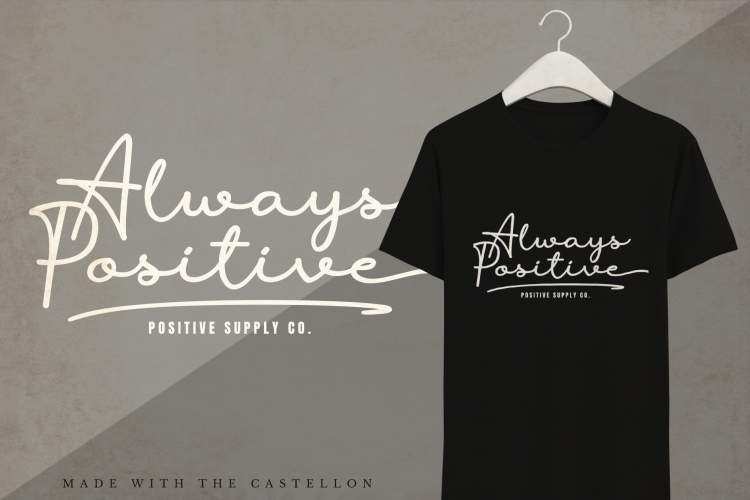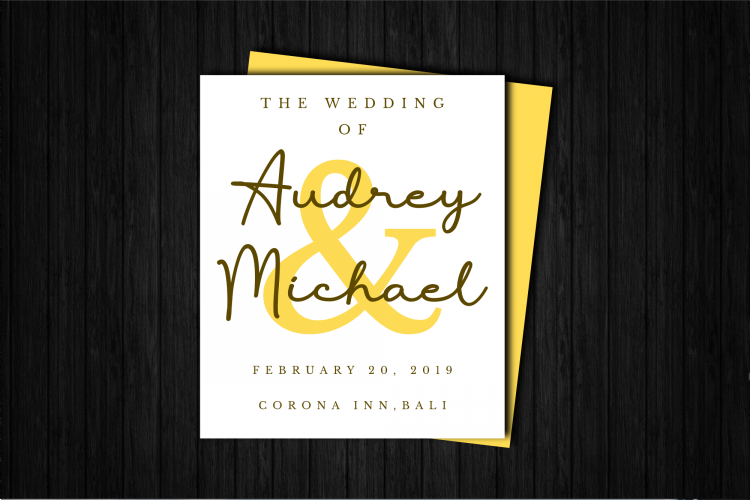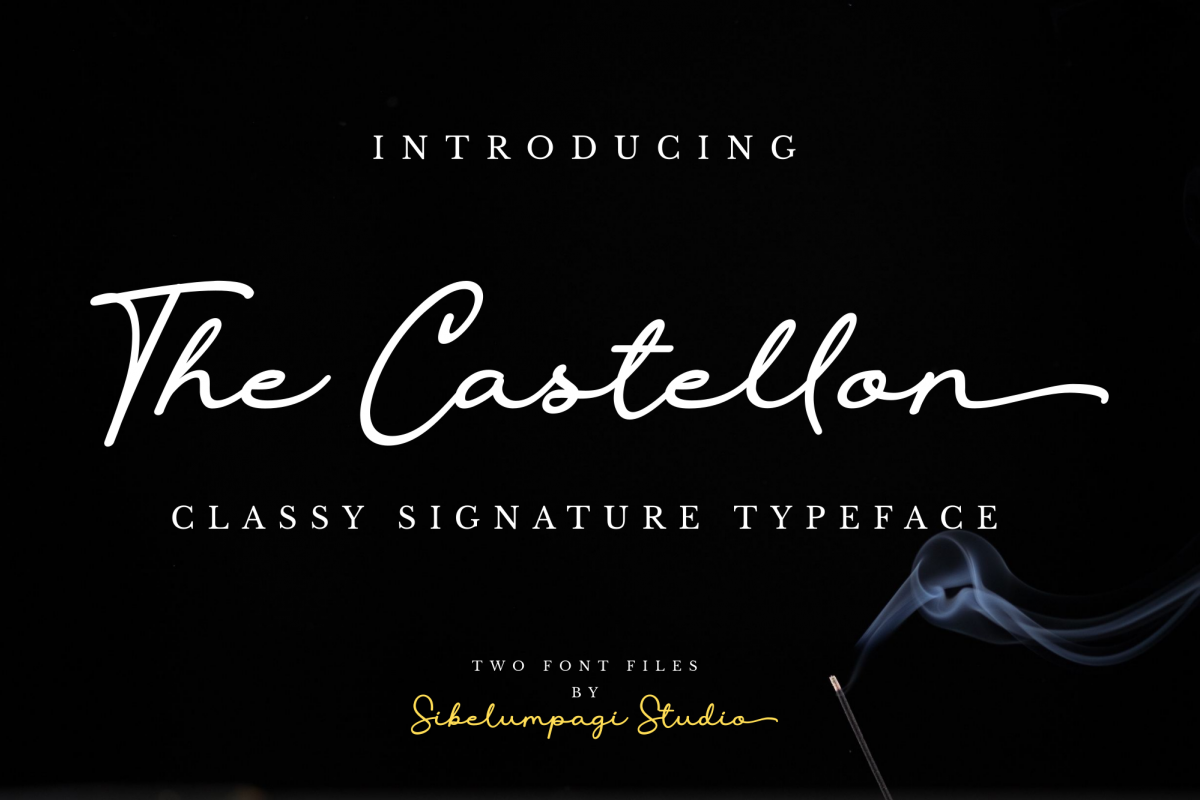
The Castellon Script Font
Hello everyone, are you looking for a classy font?
Yes, let me introduce our new font called “The Castellon”.
The Castellon is a classy signature typeface, it includes two styles regular and slant. It has an elegant style which can be used to add a natural touch to your designs. It is a good choice for watermarks on photography, signature, logo designs, quotes, branding, business cards, and many other design projects.